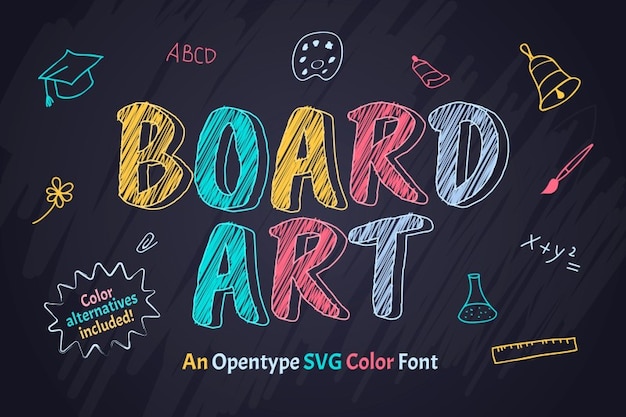
Board Art is a charming 3D font reminiscent of doodles on a chalkboard. With its playful design and dimensional appearance, each letter pops with creativity and nostalgia, perfect for school-themed projects, educational materials, or anything seeking a whimsical touch of classroom charm. Board Art brings a fun and lively energy, adding depth and character to your designs.